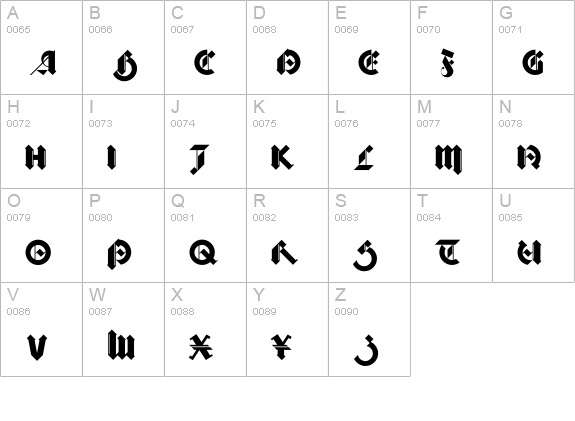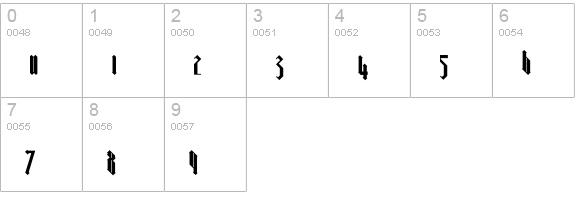
Bastard-Bold Font Details
Bastard-Bold font is a bold and striking typeface that commands attention with its unique character and strong presence. Its thick, heavy strokes exude power and confidence, making it a perfect choice for headlines, titles, and other display purposes. The Bastard-Bold font stands out from the crowd with its edgy and rebellious personality, adding a touch of attitude to any design project. What makes Bastard-Bold font even more appealing is that it is available for free download at FontsMarket.com. This means that you can easily access this eye-catching typeface without any cost, making it a valuable addition to your font library. Whether you're designing posters, banners, or logos, Bastard-Bold font will help you make a bold statement and leave a lasting impression on your audience. Download it today and unleash the power of this dynamic font in your creative projects.